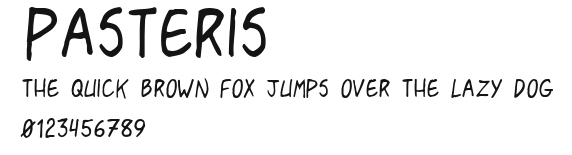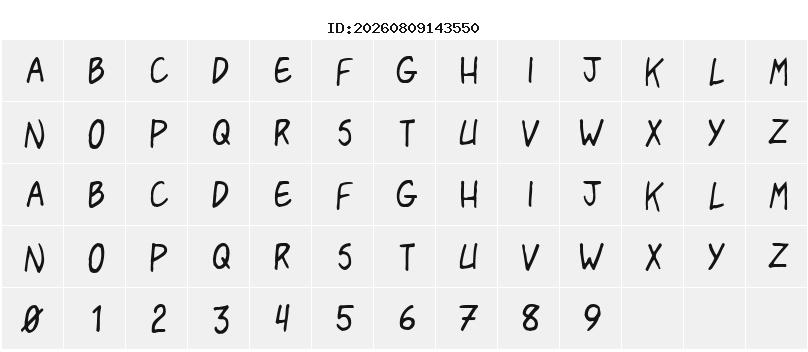
Pasteris Preview
• Font Name: Pasteris
• Full Font Name: Pasteris
About Pasteris.ttf
Pasteris.ttf is a modern, elegant sans-serif font designed for ultimate readability and visual harmony. Perfect for branding, headlines, web design, and print materials.